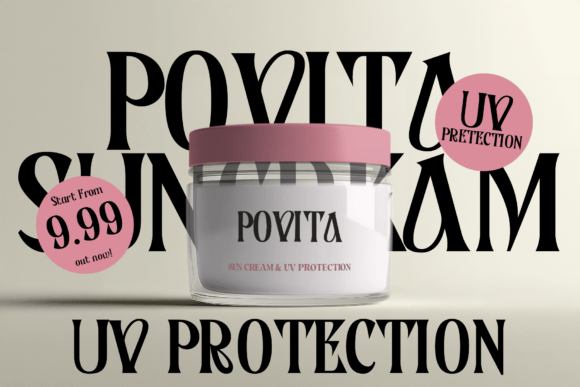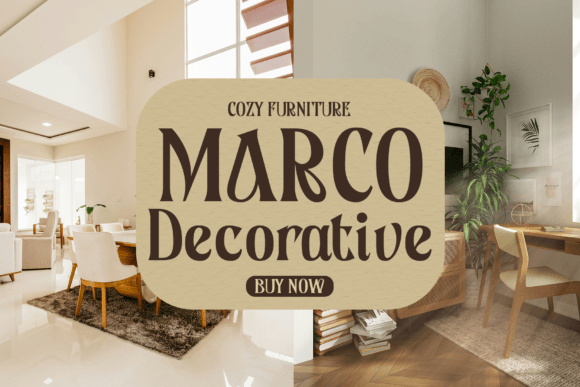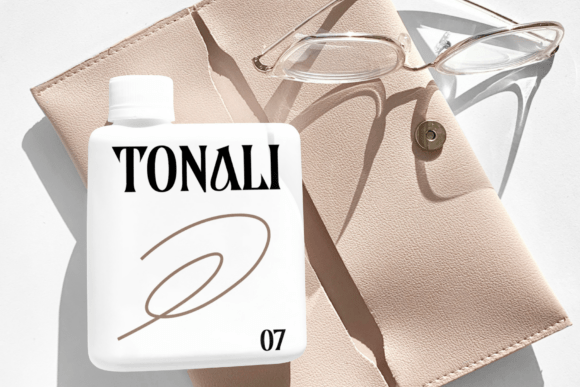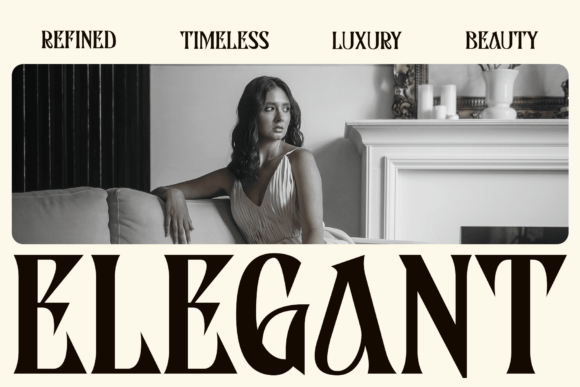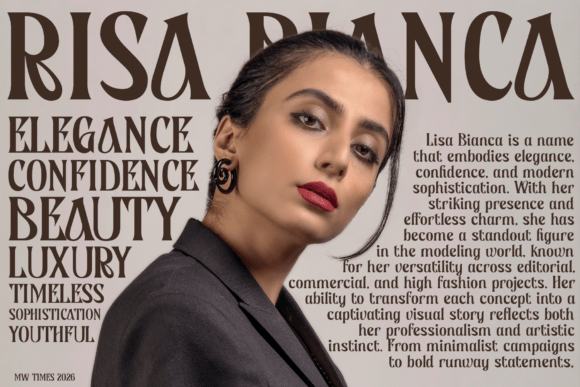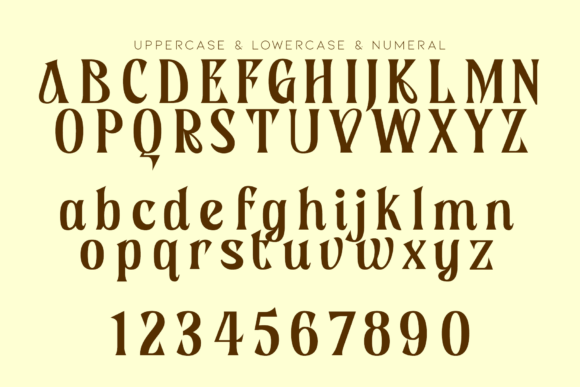
Bargen Font: Elevate Your Designs with Timeless Elegance
In the world of typography, a well-crafted font can make all the difference in elevating your designs from ordinary to extraordinary. Introducing Bargen, a modern display serif font that embodies the perfect blend of sophistication, elegance, and contemporary flair. Designed to make a lasting impression, Bargen is the ideal choice for designers and crafters seeking to add a touch of refinement to their projects.
The Art of Bargen: A Masterful Blend of Style and Sophistication
Bargen is a masterpiece of modern typography, boasting beautiful high-contrast letterforms that exude a sense of luxury and refinement. The font’s artistic curves and decorative details have been meticulously crafted to create a truly unique and eye-catching visual identity. Whether you’re working on beauty packaging, fashion editorials, or boutique logos, Bargen’s stylish alternates and distinctive serif shapes are sure to make your designs stand out from the crowd.
Unleash Your Creativity with Bargen’s Extensive Feature Set
Bargen is more than just a font – it’s a comprehensive design tool that offers a wide range of features to help you bring your creative vision to life. With a character set that includes:
- Uppercase and lowercase letters
- Numerals and punctuation marks
- Multilingual support for global designs
- Ligatures for added typographic flair
- Alternate characters for varied design options
This extensive feature set provides the flexibility and versatility you need to create unique and expressive typographic compositions that reflect your personal style.
Applications for Bargen: Where Elegance Meets Versatility
Bargen’s versatility is one of its most compelling attributes, making it suitable for a wide range of design applications. Some of the many uses for this exceptional font include:
- Beauty packaging: Add a touch of luxury to your product designs
- Fashion editorials: Elevate your magazine layouts with Bargen’s sophisticated charm
- Cosmetic labels: Create eye-catching labels that reflect your brand’s high-end quality
- Boutique logos: Establish your brand’s identity with a distinctive and memorable logo
- Wedding designs: Add a touch of elegance to your wedding stationery and decor
- Magazine layouts: Bring a sense of refinement to your editorial designs
- Product presentations: Showcase your products in a stylish and sophisticated light
The Benefits of Bargen: Why Choose This Exceptional Font?
So why choose Bargen for your design projects? Here are just a few compelling reasons:
- Timeless elegance: Bargen’s classic design ensures that your projects will remain stylish for years to come
- Contemporary flair: The font’s modern twists and artistic details keep your designs fresh and current
- Flexibility: With a wide range of features and applications, Bargen adapts to your design needs
- Refined and balanced: The font’s graceful structure creates a strong visual impact without feeling overwhelming
Get Ready to Elevate Your Designs with Bargen
Ready to experience the elegance and sophistication of Bargen for yourself? Whether you’re a designer, crafter, or simply someone who appreciates beautiful typography, this exceptional font is sure to inspire your creativity and take your projects to the next level. With Bargen, you can:
- Create stunning visual compositions that capture attention
- Establish a strong brand identity that reflects your values and style
- Stand out in a crowded design landscape with unique and expressive typography
In conclusion, Bargen is a truly exceptional font that offers a perfect blend of style, sophistication, and versatility. Whether you’re working on a high-end design project or simply seeking to elevate your craft, Bargen is the ideal choice for anyone who values beautiful typography and timeless elegance.